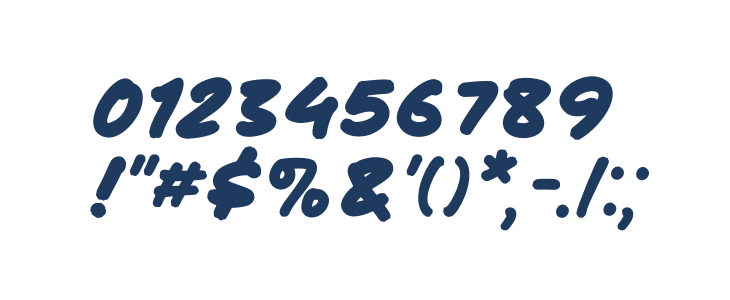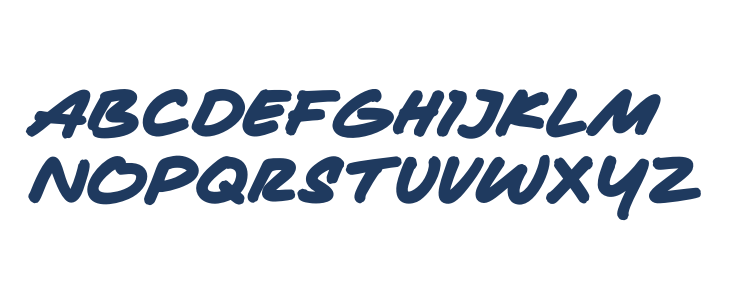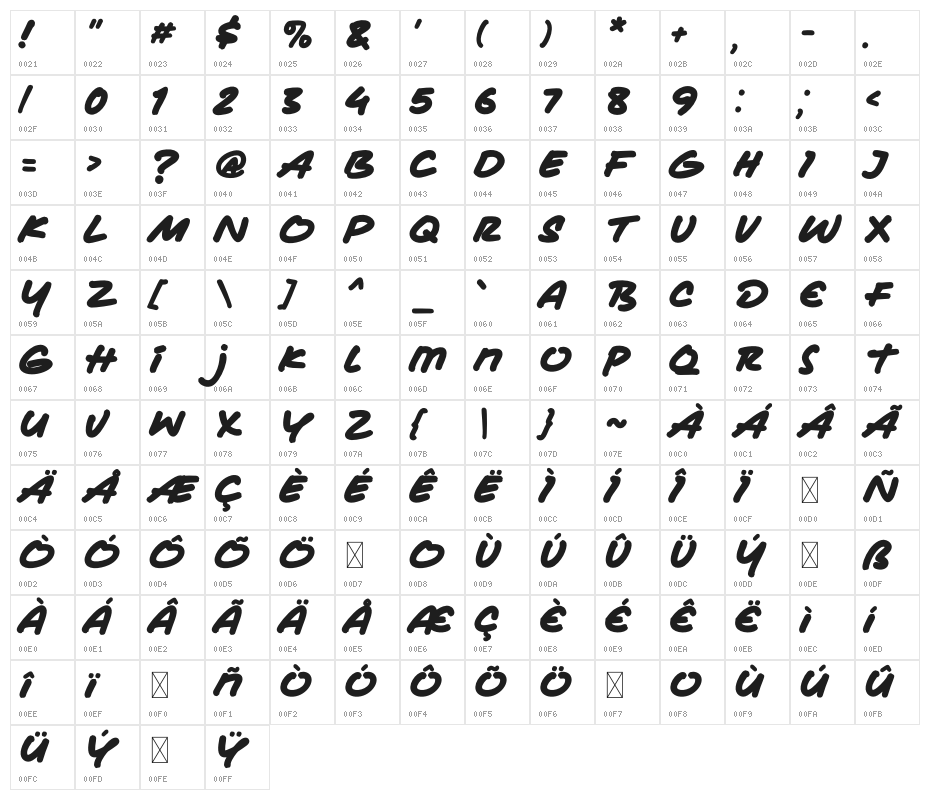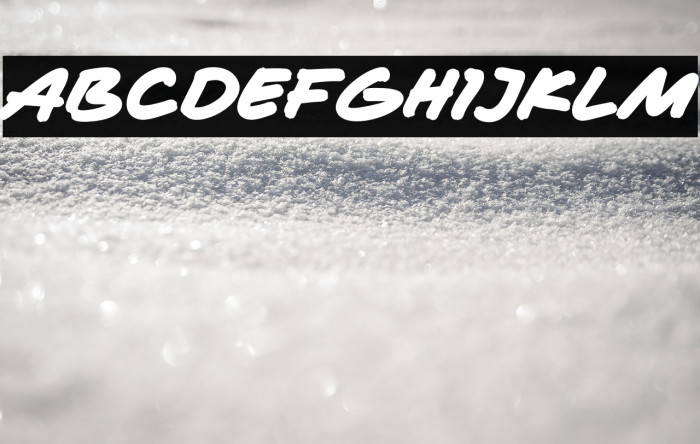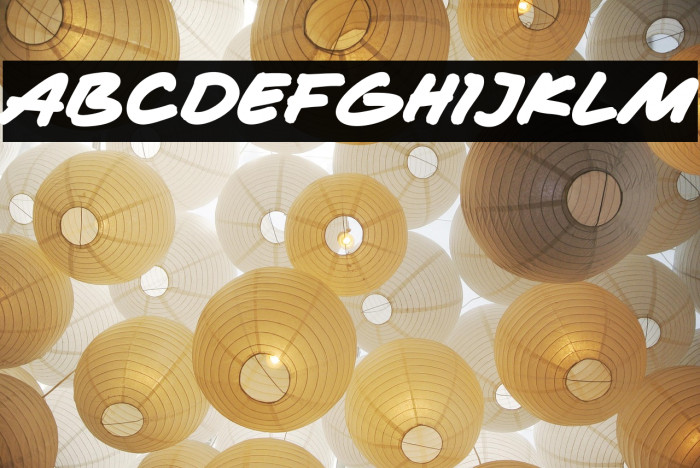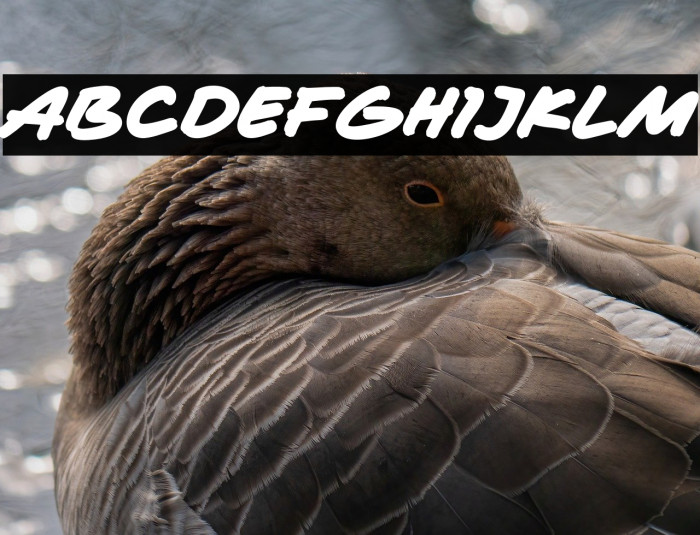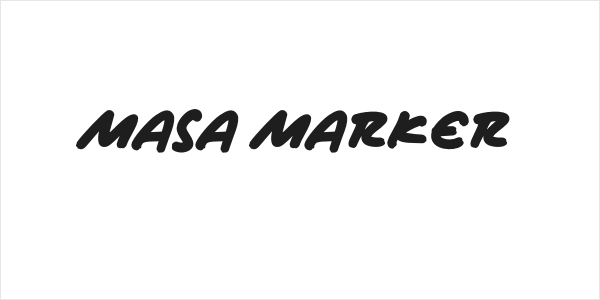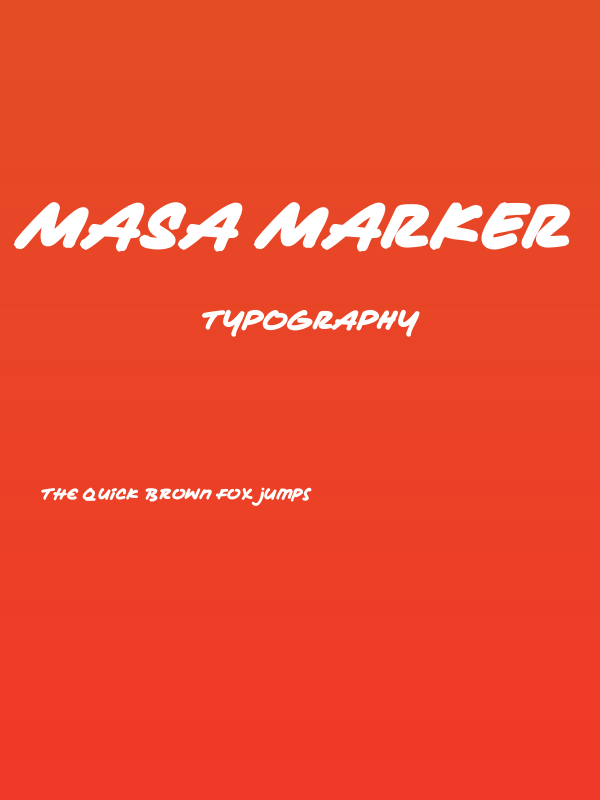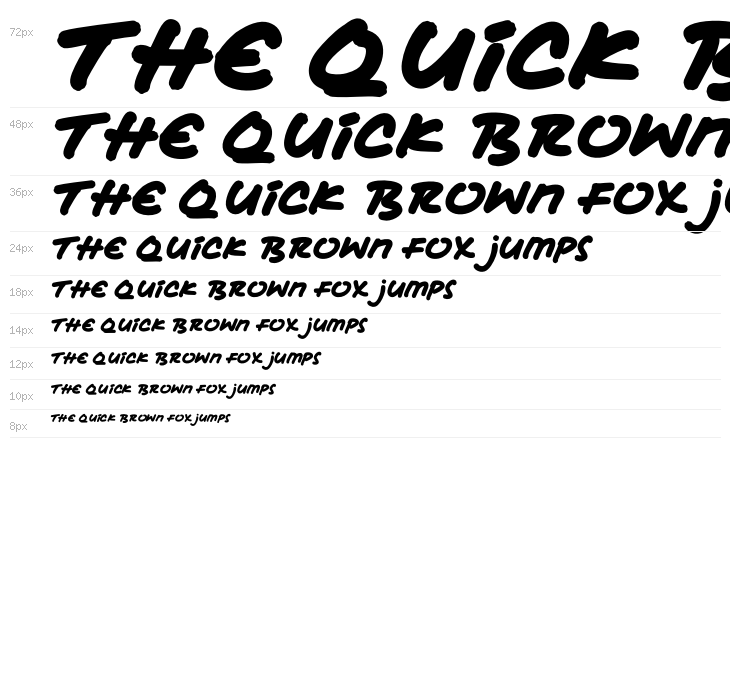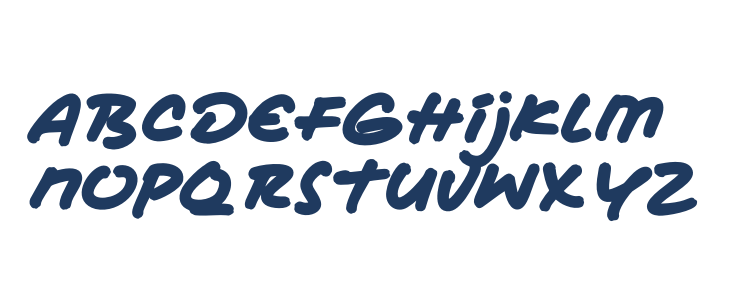
Masa Marker Font
Masa Marker Description
Bold, cursive, handwritten style font with a smooth, flowing appearance.
| Overall Style | Casual, Friendly, Handwritten |
| Use Case | Headlines, Logos, Invitations, Branding |